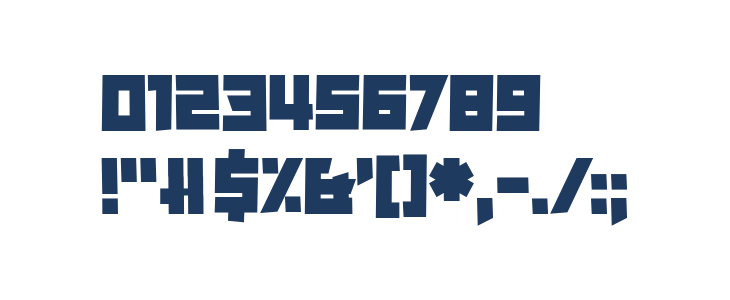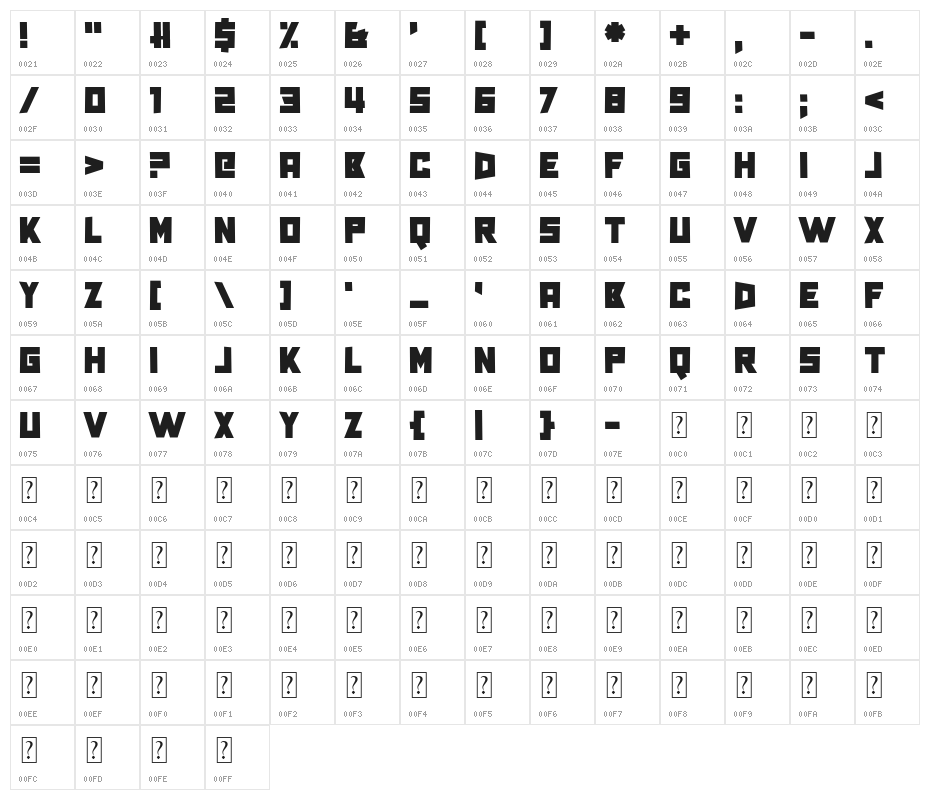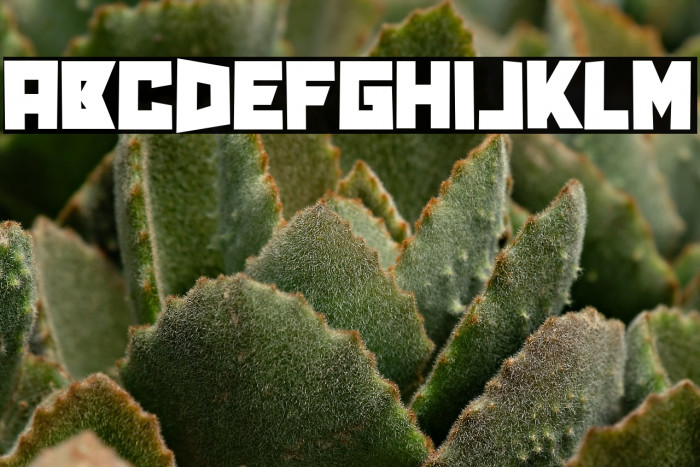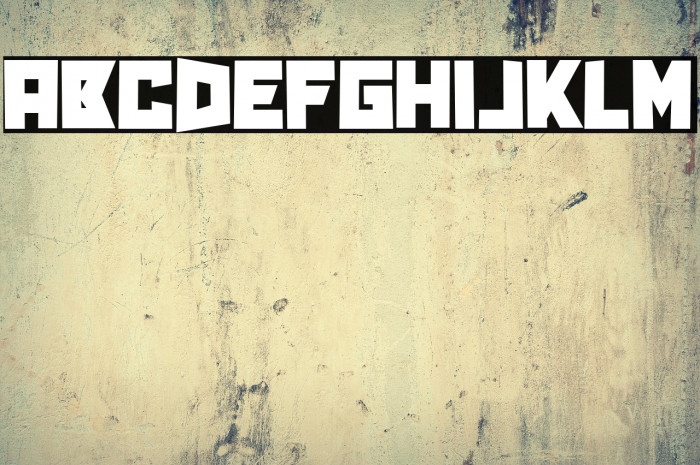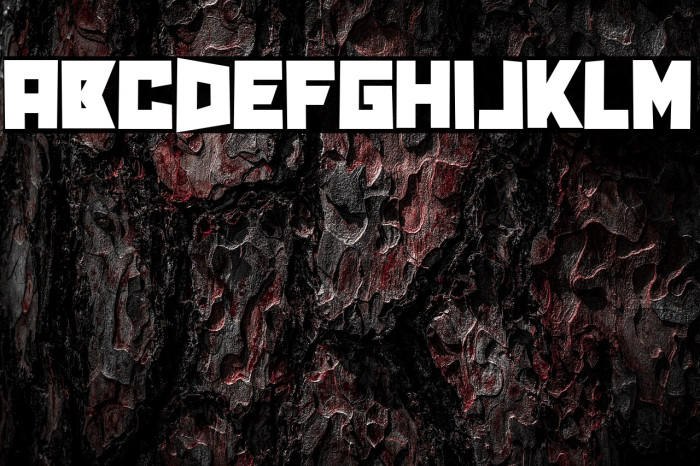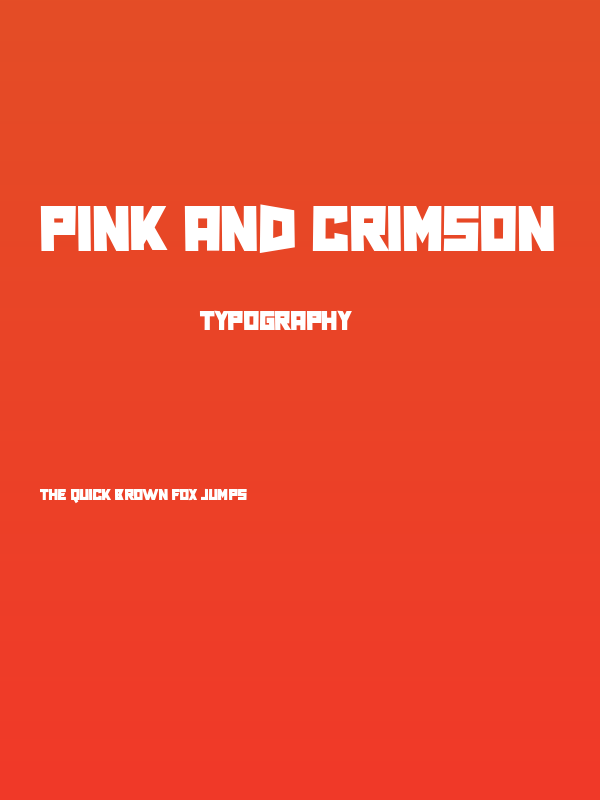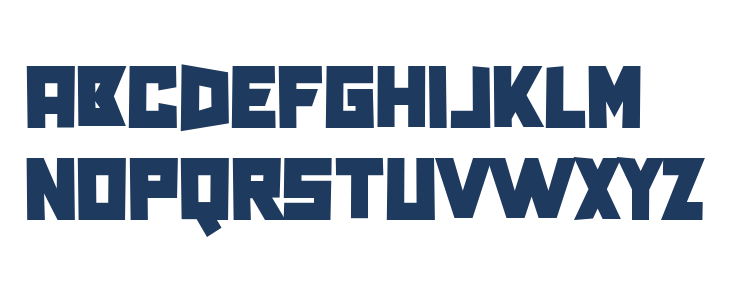
Pink and Crimson Font
Pink and Crimson Description
This font features a bold and dynamic design with sharp, angular edges and a strong geometric influence. The characters are blocky and robust, giving a sense of power and impact. The uppercase and lowercase letters maintain a consistent style, with the lowercase slightly smaller but equally bold. Numbers and special characters follow the same design principles, ensuring uniformity across all glyphs. The font's unique style makes it stand out, with each character having a distinct presence. The overall appearance is modern and edgy, suitable for projects that require a strong visual statement.
| Proposed Projects | Ideal for posters, logos, video game graphics, and branding materials that require a bold and impactful look. |